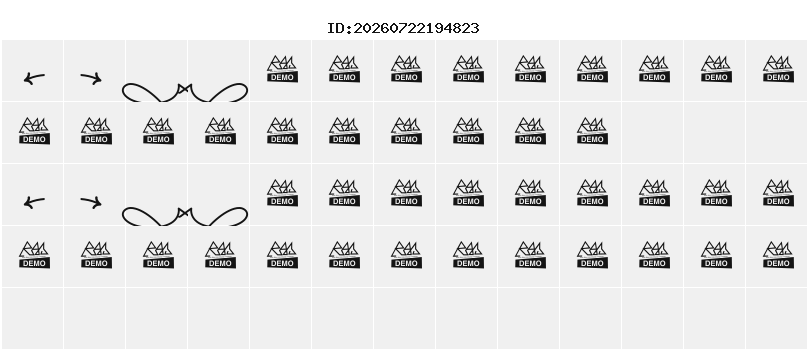
mOskU Alternative Preview
• Font Name: mOskU Alternative
About mOskU Alternative.ttf
mOskU Alternative.ttf is a modern, elegant sans-serif font designed for ultimate readability and visual harmony. Perfect for branding, headlines, web design, and print materials.